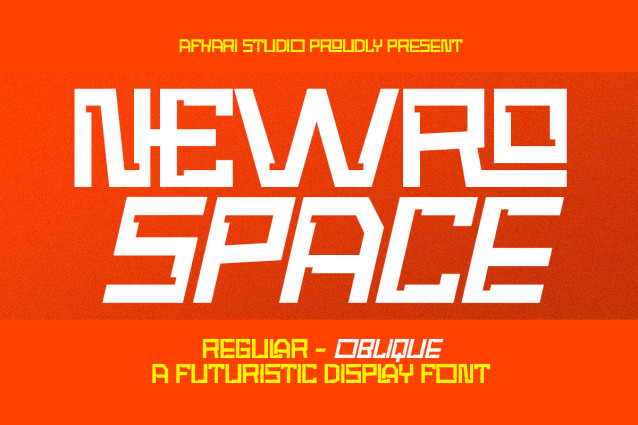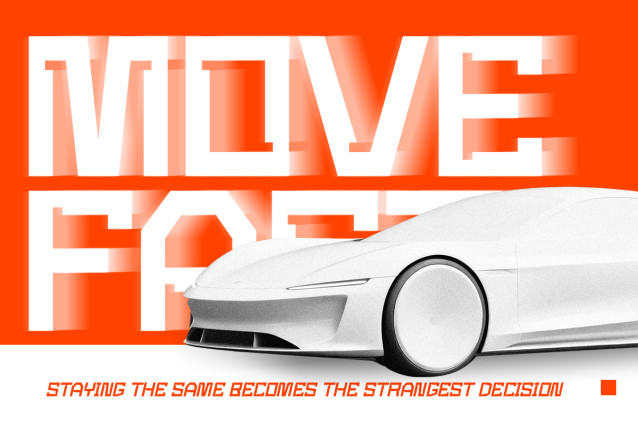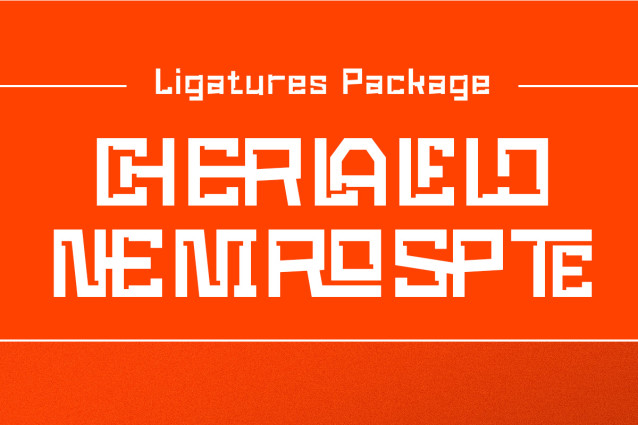
Newro Space – Modern Futuristic Display Font
Newro Space is a sleek modern futuristic display font designed to capture the spirit of innovation, technology, and forward-thinking design. With sharp geometric forms, balanced proportions, and a clean sci-fi aesthetic, Newro Space delivers a bold visual impact while remaining readable and versatile.